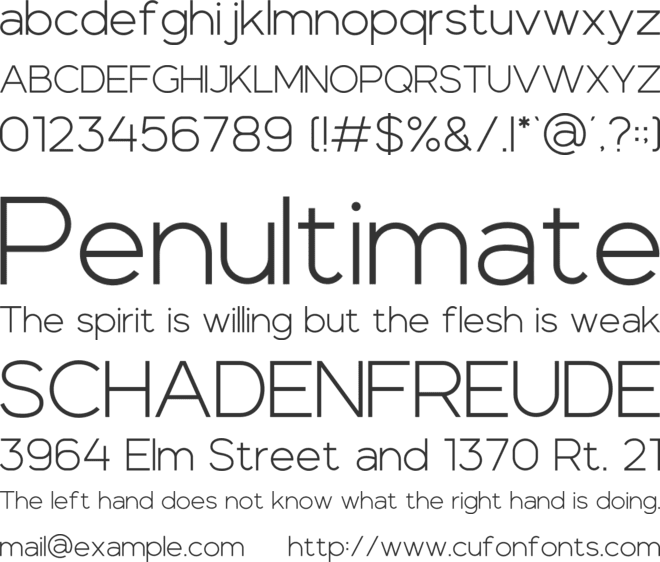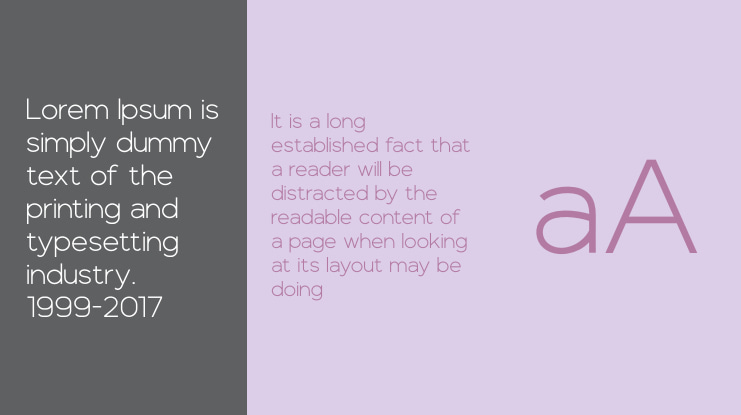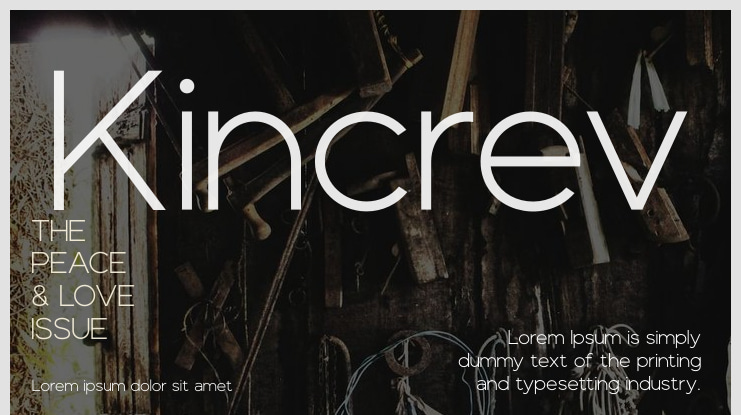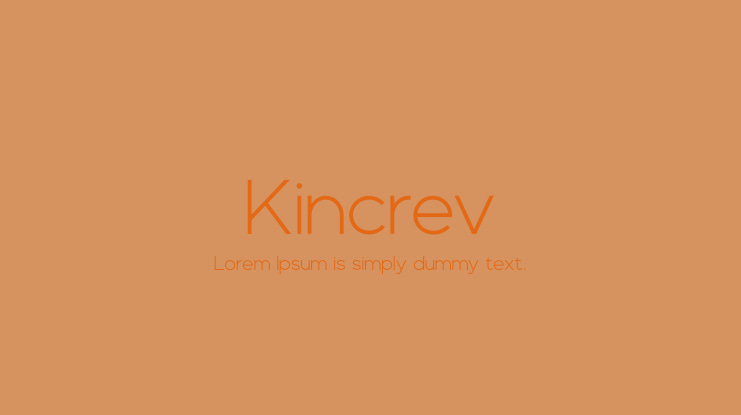
Kincrev Font Family
Kincrev - Sans Serif Font
Kincrev Sans Serif Font suitable for logos, posters, sport, modern advertising design, product labels, t-shirts, youtube thumbnail/cover, poster quote, editorial design, book / cover Title, website / blog, social media post, packaging designs and other designs.